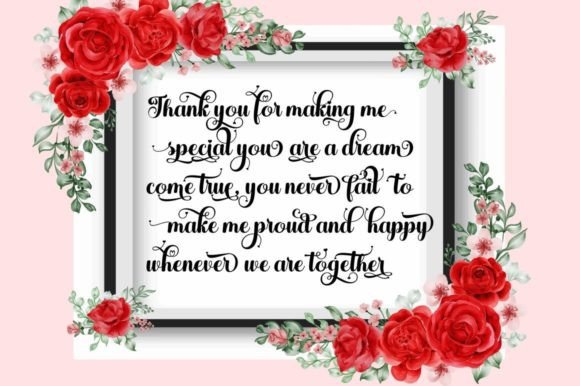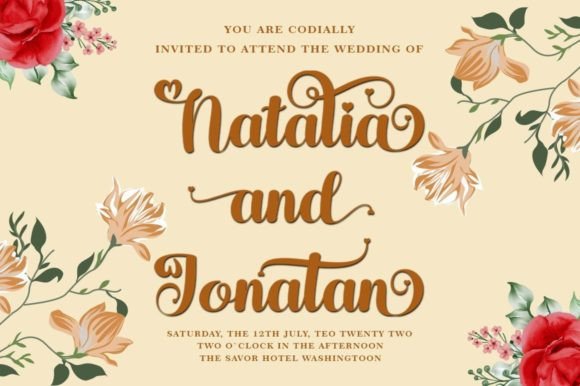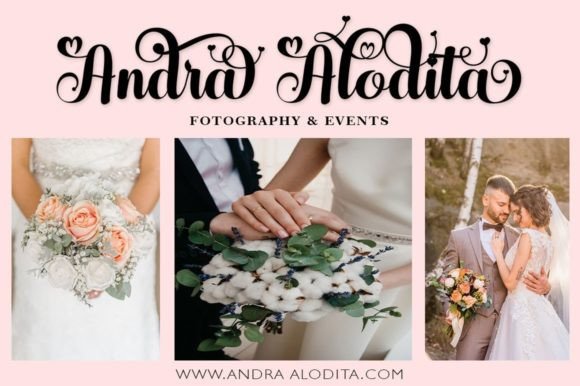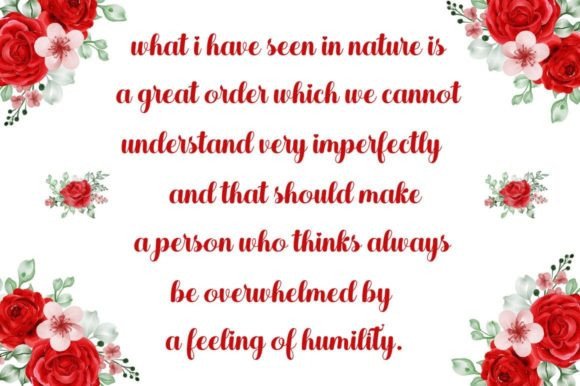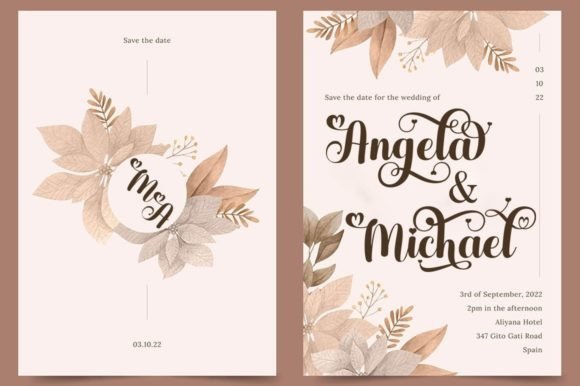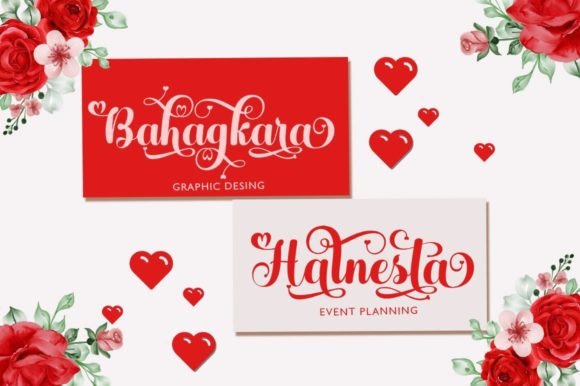
Introducing Angelina Font: Elevate Your Designs with Fresh and Modern Script Elegance
In the world of typography, a good font can make all the difference in elevating your design from ordinary to extraordinary. For designers, crafters, and anyone looking to add a touch of elegance and personality to their projects, the Angelina Font is a game-changer. This beautifully crafted script font is not just a typeface; it’s an invitation to explore the realms of creativity and sophistication. In this article, we’ll dive into the features, benefits, and uses of the Angelina Font, and why it should be a part of your design arsenal.
What Makes Angelina Font Stand Out?
Angelina Font is a fresh and modern script font that boasts handcrafted calligraphy styles, decorative characters, and dancing baselines. Its unique charm lies in its ability to bring a sense of movement and fluidity to any design project. Whether you’re working on invitations, greeting cards, branding materials, business cards, quotes, posters, or more, Angelina Font adds that special something that can make your work stand out.
Key Features of Angelina Font
- Handcrafted Calligraphy Styles: Each letter is carefully crafted to give the font a personal and bespoke feel.
- Decorative Characters: Adds an extra layer of elegance and sophistication to your designs.
- Dancing Baselines: Gives your text a dynamic and lively feel, perfect for catching the eye.
- PUA Encoded: Ensures easy access to all glyphs and swashes, making it simple to customize your text.
The Benefits of Using Angelina Font
The benefits of using Angelina Font in your design projects are numerous. Here are a few reasons why designers and crafters are falling in love with this beautiful script font:
- Versatility: Suitable for a wide range of projects, from formal invitations to playful posters.
- Elegance: Adds a touch of sophistication and luxury to any design.
- Readability: Despite its decorative nature, Angelina Font remains highly legible, making it perfect for both headings and body text.
- Customization: With PUA encoding, you have the freedom to experiment with different glyphs and swashes, allowing for endless design possibilities.
Creative Uses of Angelina Font
So, what can you create with Angelina Font? The possibilities are endless, but here are a few ideas to get you started:
- Wedding Invitations: Add a touch of romance and elegance to your wedding invitations and save-the-date cards.
- Branding Materials: Elevate your brand’s visual identity with a sophisticated and modern script font.
- Greeting Cards: Create beautiful and heartfelt greeting cards for any occasion.
- Posters and Flyers: Use Angelina Font to create eye-catching posters and flyers that demand attention.
- Quotes and Inspirational Messages: Add a touch of elegance to your quotes and inspirational messages, perfect for sharing on social media or printing as wall art.
In conclusion, the Angelina Font is a stunning script font that can elevate your design projects to new heights. With its handcrafted calligraphy styles, decorative characters, and dancing baselines, it’s the perfect choice for designers and crafters looking to add a touch of elegance and sophistication to their work. Whether you’re creating invitations, branding materials, or simply looking for a beautiful font for your next project, Angelina Font is definitely worth checking out.